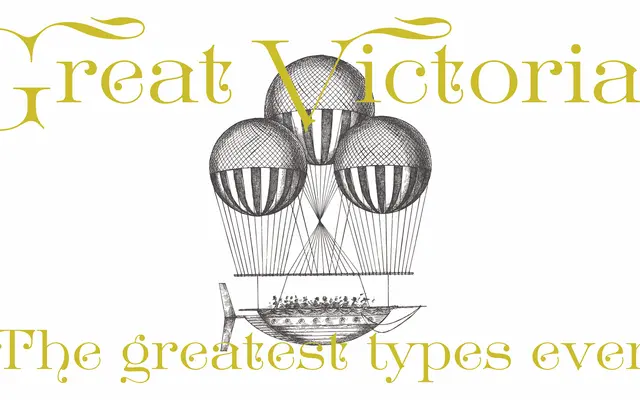
Great Victorian specimen from Dharma Type
A decorative revival of Euclid and Euclid Initials, two ornate display faces originally issued by the Cleveland Type Foundry in the late 19th century.
Based on Euclid and Euclid Initials from the Cleveland Type Foundry, this revival brings the elaborate embellishment of Victorian-era display typography into digital form. The ornate detailing reflects the craft traditions of 19th-century type design, where letterforms were treated as objects of decorative art. Best suited to vintage-inspired branding, packaging and editorial work where period atmosphere is the priority.
A decorative revival based on Euclid and Euclid Initials from the Cleveland Type Foundry, with the ornate, heavily embellished character typical of Victorian-era display faces.